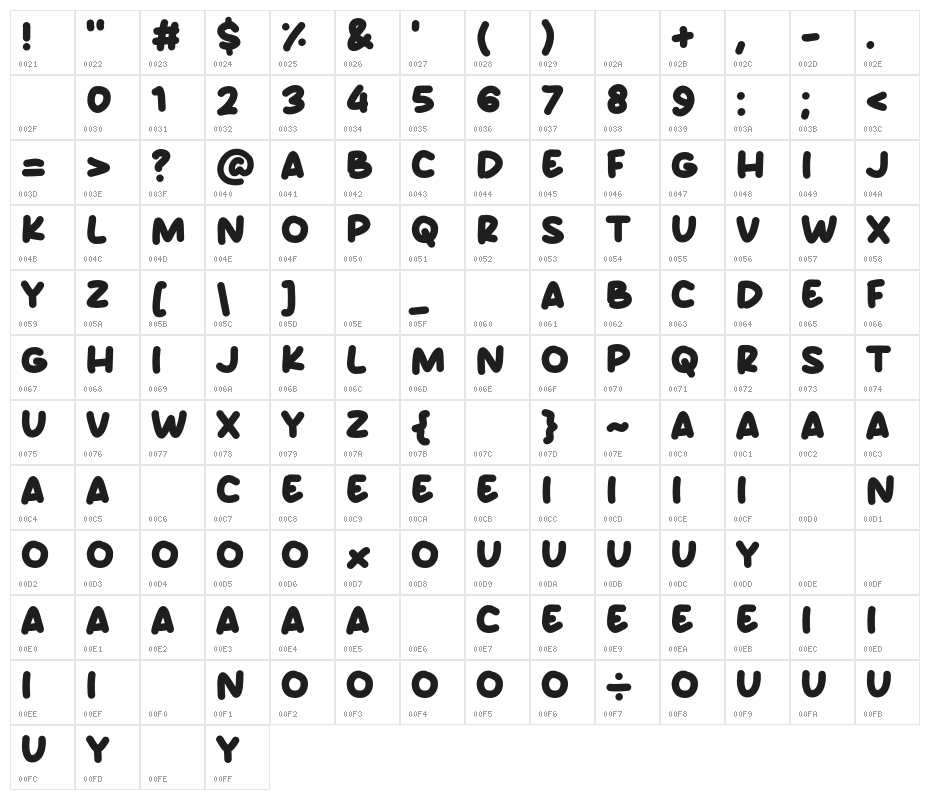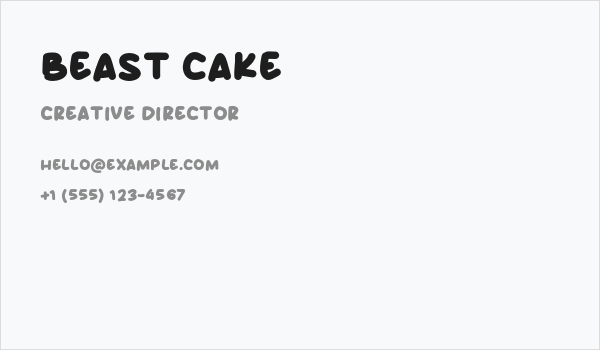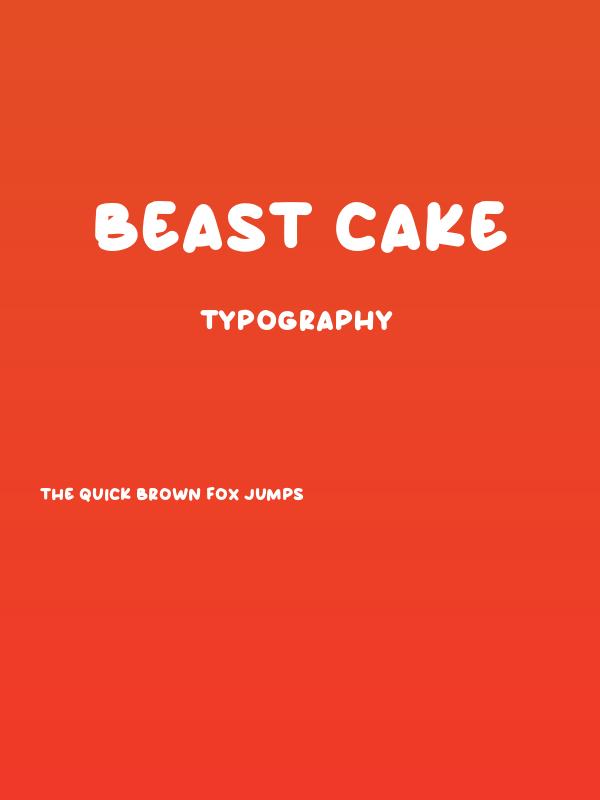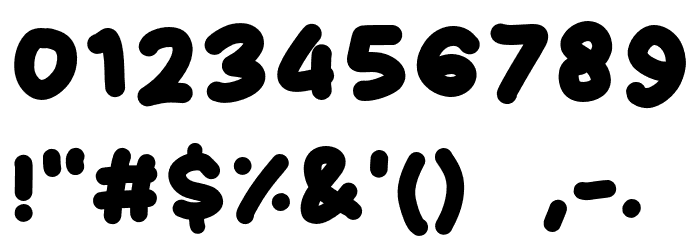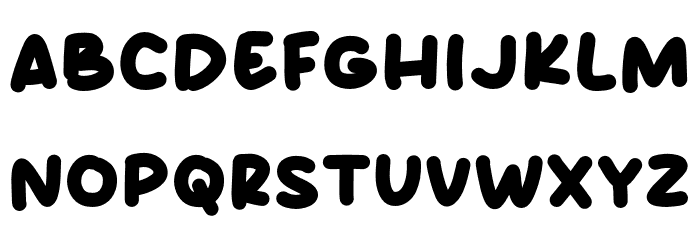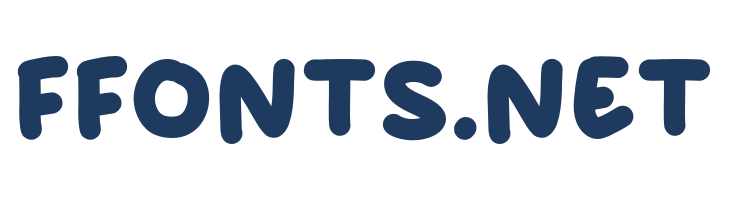
Beast Cake Font
Beast Cake Description
This playful and bold font features rounded, thick strokes that give it a friendly and approachable appearance. The characters are slightly irregular, adding a whimsical touch to the overall design. The uppercase and lowercase letters maintain a consistent weight, contributing to a cohesive look. The numerals and special characters are designed to match the playful style, making them suitable for creative and informal projects. The font's boldness ensures high visibility, making it ideal for attention-grabbing headlines or logos.
| Overall Style | Playful, Whimsical |
| Proposed Projects | Ideal for children's books, playful branding, party invitations, and creative posters. |